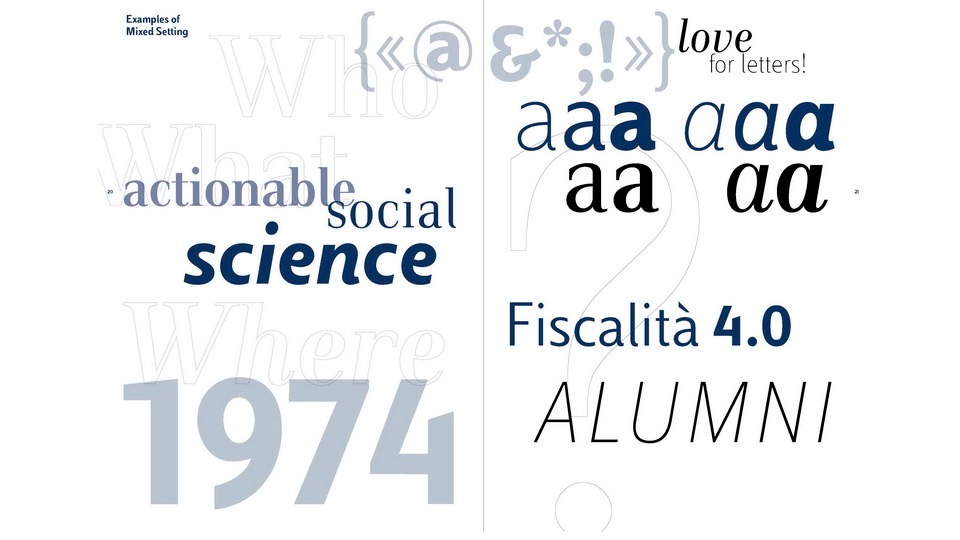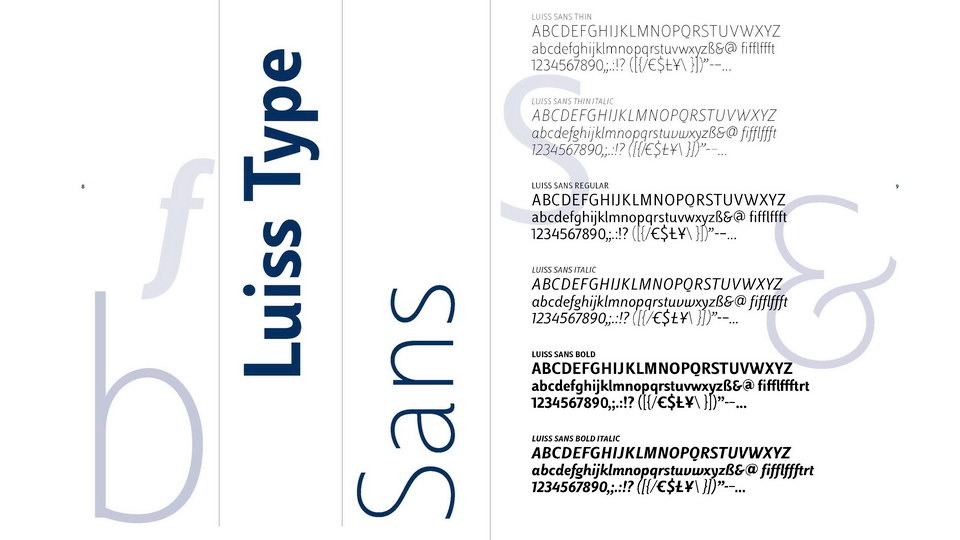
Luiss Font
Luiss Serif Font
This font is a combination of classic serif & vintage look. It’s designed and shared by Antonio Pace. Luiss fonts are carefully hand-crafted to achieve maximal aesthetics. The “operation” Luiss Type takes part in the general mission of transmitting values such as innovation and leadership: coining one’s own style instead of following or adopting pre-existing ones rewards autonomy in the representation of the corporate culture, besides conferring operational independence.
Luiss Serif and Luiss Sans, two families of institutional characters, designed ad hoc to ensure empathy and recognizability to the message of the university on the relational level with the entire stakeholdership. Luiss Sans featured by 6 fonts from Thin to Bold and matched Italics. Luiss serif contains Regular and Bold weights with Italics. The typeface contains full set of glyphs, including uppercase and lowercase letters, numbers, symbols, stylistic sets, ligatures, etc.